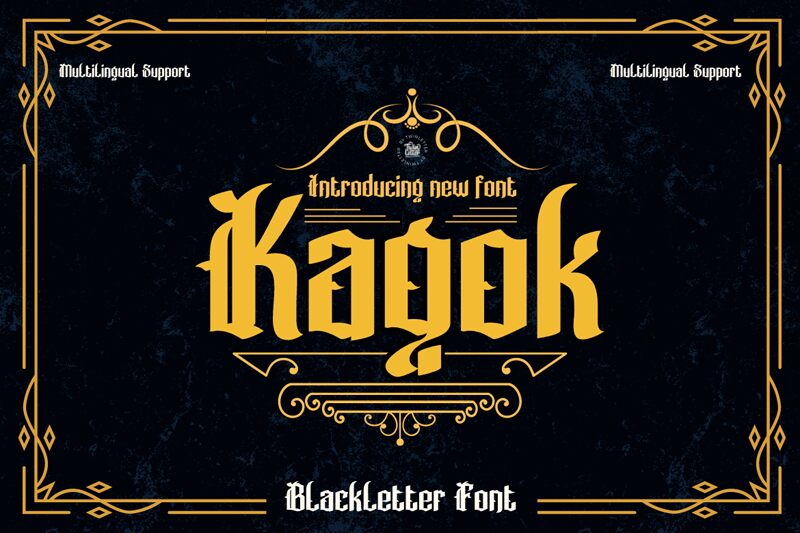
Kagok, designed by twinletter, is a gothic font with a modern twist. Its semi-bold weight and extra-condensed width give it a unique anatomical shape that is both bold and striking.
Inspired by classic Victorian typefaces, Kagok exudes strength and vintage charm. With its futuristic yet elegant style, this font is perfect for a wide range of projects. Use it to add a touch of sophistication to your branding materials, create eye-catching headlines for posters or advertisements, or give your website a sleek and contemporary look.
Whatever the project may be, Kagok will bring an air of boldness and elegance to your design.